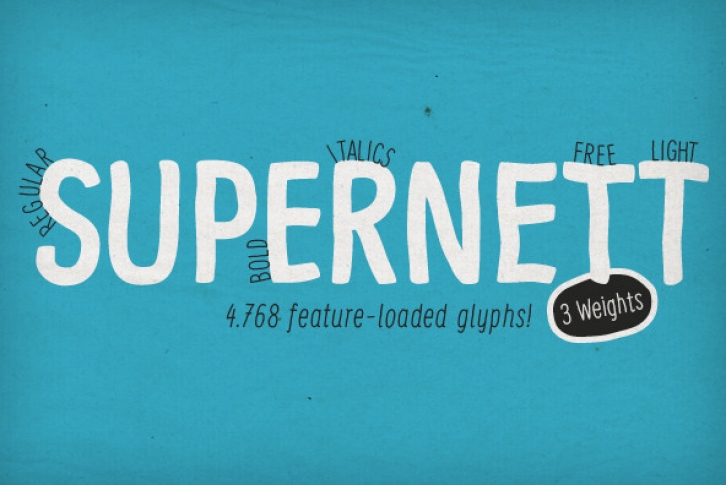
Ever tried to write a Sans-Serif by hand? We did it Supernettâ„¢!
More than 4700 glyphs per style to pursue one goal: let the font look real hand-made, let equal glyphs look different to each other. Three OpenType features are specially tailored to enhance this impression, with a maximum effect when applied to big type:
Alternating Letters
For a truly hand-drawn look, letters and numerics alternate randomly between three different variants (activate “Contextual Alternatesâ€)
Rotating letters
All glyphs rotate randomly and slightly around their own axis (activate “Swashesâ€)
Varying Baseline Shift
Each single glyph moves individually up or down (activate “Titling Alternatesâ€)
... and some more OT-features for the typographic detail:
Case Sensitive Forms
This feature shifts various punctuation marks to a position that works better with all caps typography. (It is deployed when an app’s all-caps styling is applied)
Slashed Zero
The problem with the numeral 0 is that it can look too much like O in some typefaces. This feature replaces every zero with a slashed zero. (activate “Zero with a Slashâ€)
Fractions
Substitutes figures separated by a slash by proper fraction glyphs. A date however, written like 10/12/2013 will remain unchanged. (activate “Fractionsâ€)
Stylistic Set 03 lets you choose between two different styles of bullet (•)
Stylistic Set 04 lets you choose between two different styles of Y
Supernett – a versatile display font – is tailored for large font sizes but also impresses with an astounding legibility in small typesettings. Supernett is fairly condensed for space-saving headlines, a more extended version is already in the works. The extensive character set supports Central and Eastern European as well as Western European languages.